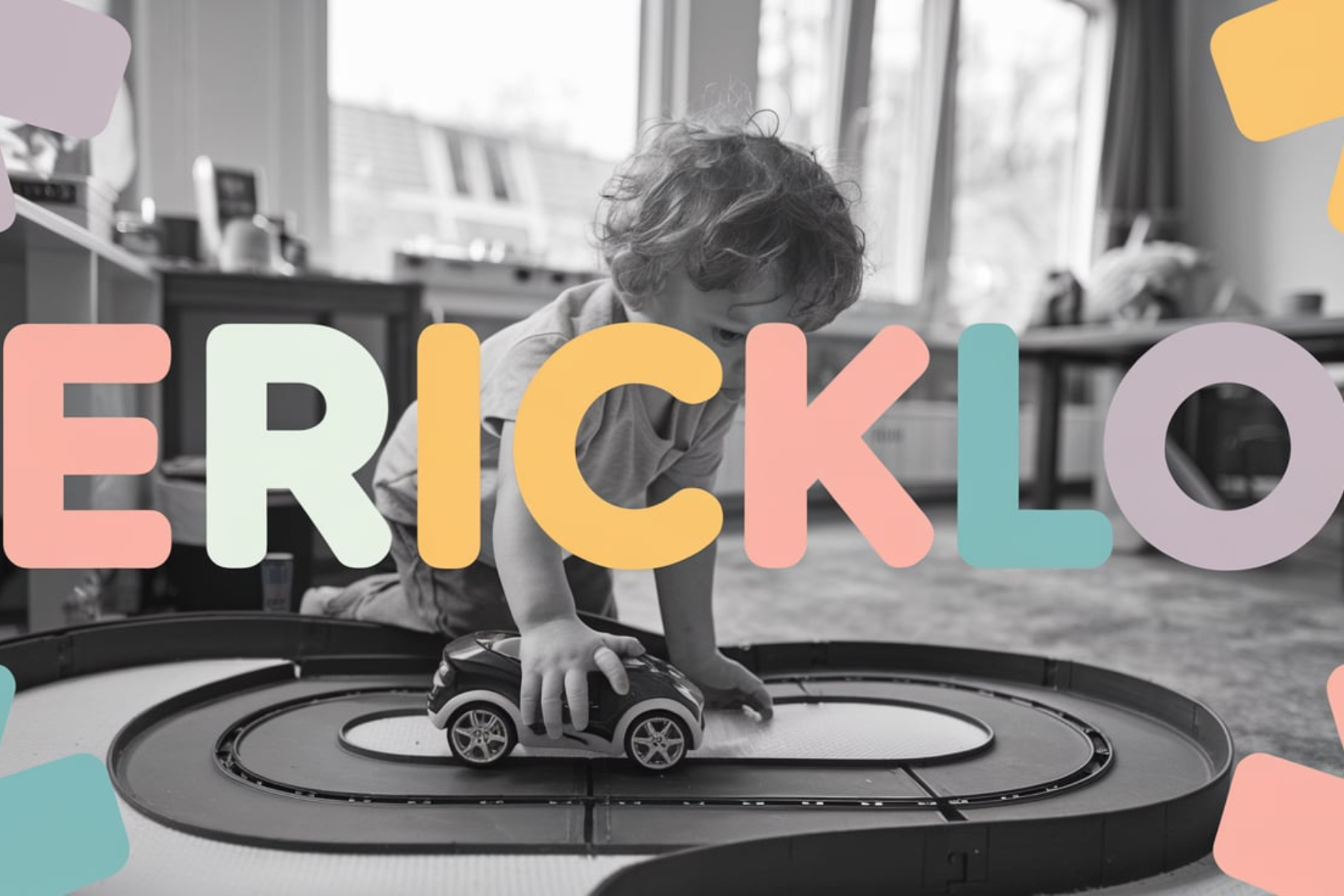
Ericklo – Kids & Playful Font
Ericklo – Kids & Playful Font is a cheerful and whimsical typeface designed to capture the joy and innocence of childhood. With its bubbly, rounded letters and lively curves, Ericklo is perfect for projects aimed at children or those that want to evoke a sense of fun and lightheartedness. Whether you're designing for kids' books, toys, birthday invitations, or playful branding, this font brings warmth and approachability to your text.